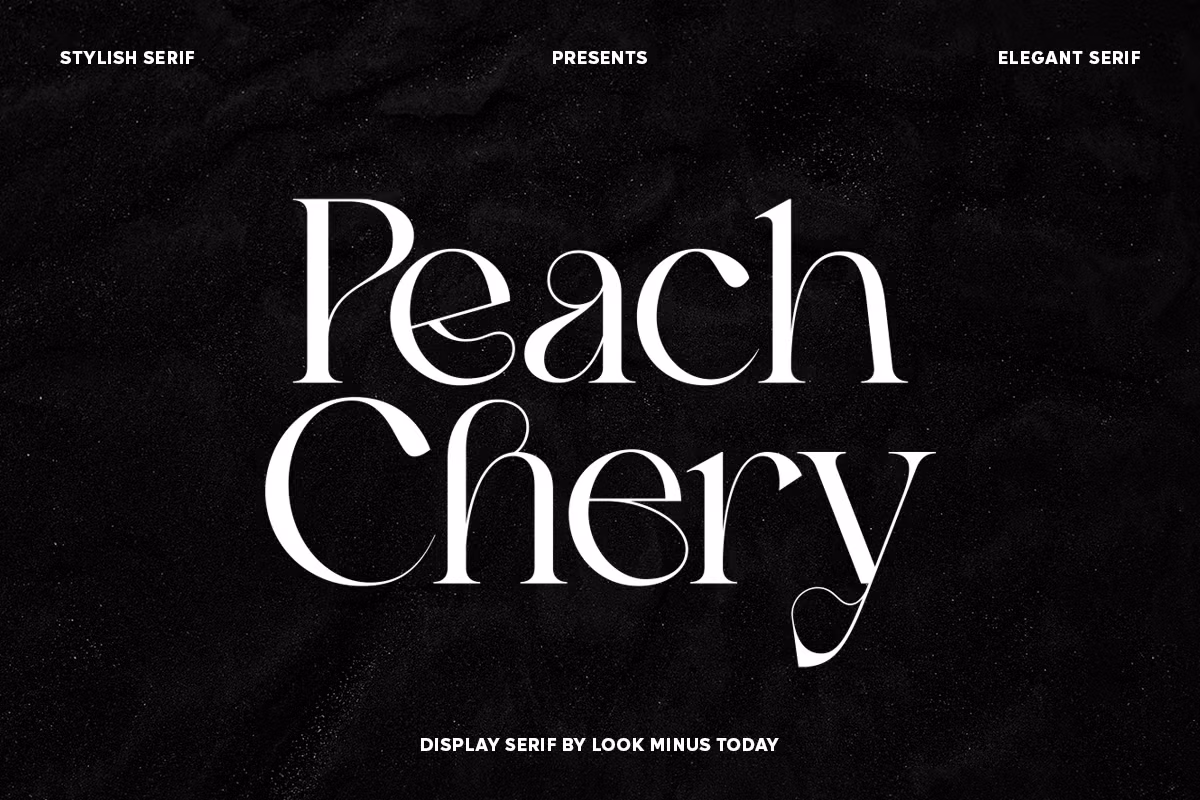
Peach Chery | Display Serif Font Free Download
Peach Chery | Display Serif Font Free Download is a charming and stylish typeface that blends classic serif elegance with playful, modern flair. Please note: you must purchase this font for commercial use, but you can test it through a free download. With its soft curves, high contrast, and whimsical details, Peach Chery is perfect for branding, packaging, wedding invitations, magazine titles, and feminine-focused design.
Whether you're creating a boutique logo or a romantic editorial spread, Peach Chery | Display Serif Font Free Download adds a fresh and fashionable personality to your work. It’s designed to stand out while maintaining a refined, graceful appearance. The font is fully compatible with Adobe Illustrator, Photoshop, Canva, and more—making it easy to use in both print and digital formats. Download it today for personal use and infuse your next project with the sweet sophistication of Peach Chery.